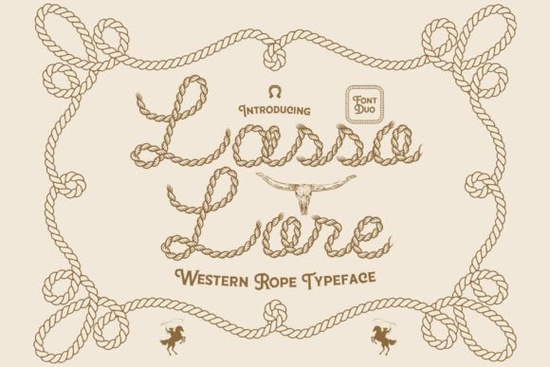
If you’re looking for a display font that feels like it belongs on a vintage saloon sign, a ranch branding iron, or a hand-stamped leather journal cover, Lasso Lore Font is worth your attention. It’s not just another Western-style typeface it’s built from the physical language of rope: tight coils, loose loops, and uneven tension. That authenticity shows up in every uppercase and lowercase glyph, giving your designs texture and intention not just theme.
What makes Lasso Lore different from other Western fonts?
Most “cowboy” fonts lean heavily on serifs, sharp angles, or distressed textures. Lasso Lore takes a more tactile approach. Its letterforms echo the way a lariat twists and settles soft curves where rope bends, subtle tapering where it tightens, and gentle irregularities that mimic hand-wound fiber. It’s bold enough for headlines and logos, but never cartoonish or overly stylized. You’ll notice how the “S,” “R,” and “G” especially capture that coiled, pliable energy like rope draped over a fence rail rather than stamped onto a tin can.
The pairing with Roseblade is thoughtful, not just convenient. Roseblade isn’t a generic sans-serif it’s a clean, slightly calligraphic secondary font with balanced weight and open spacing. Where Lasso Lore brings warmth and character, Roseblade adds clarity and contrast. Use them together for posters, shop banners, or product labels: Lasso Lore for the brand name or headline, Roseblade for body text, pricing, or descriptors.
Who actually uses Lasso Lore and how?
Small businesses launching Western-themed products think handmade soaps with sage-and-cedar scents, leather gear shops, or Texas-based coffee roasters find it especially useful for consistent branding across packaging, Instagram posts, and Etsy banners. Print-on-demand sellers use it for rustic apparel designs (think “Trail Boss” on a heavyweight tee) because it scales well and holds detail even at smaller sizes when used thoughtfully.
How does it compare to other popular script and display fonts?
Unlike flowing scripts like Coconut Mocha or Samantha Handwriting, Lasso Lore isn’t meant for personal notes or elegant invitations. It’s bolder, more structural, and intentionally rougher around the edges. If you love the organic feel of Anytimes but need something with stronger Western identity, or if you’ve used Valentina Calligraphy for softer projects and want a grounded counterpart, Lasso Lore fills that niche cleanly.
It’s also distinct from decorative display fonts that rely on heavy outlines or shadow effects. Lasso Lore works with color, layering, and simple backgrounds no extra effects needed. That makes it easier to adapt for embroidery digitizing, vinyl cutting, or screen printing, where complex details can get lost.
Where to use it and where to pause
Best for:
- Logo lockups (especially paired with Roseblade)
- Event posters and rustic wedding signage
- Merchandise like mugs, tote bags, and denim patches
- Social media banners and profile highlights for themed accounts
- Digital downloads targeting Western, Americana, or outdoor audiences
Less ideal for:
- Long paragraphs or body copy (it’s a display font, not a text font)
- Ultra-minimalist or Scandinavian-inspired brands (its personality is too present)
- Brands aiming for strict historical accuracy the design is inspired by Western craft, not a replica of 19th-century typesetting
If you're curious about how real designers apply rope-inspired typography, check out examples of Lasso Lore font in action on Creative Fabrica’s platform especially in best-selling POD bundles and craft kits.
A quick checklist before you download
- ✅ Confirm your project needs strong visual personality not neutrality
- ✅ You have a clear use case for a display font (headline, logo, banner)
Try setting a short phrase like “High Desert Co.” or “Ride On” in Lasso Lore first. Then add Roseblade underneath for the tagline. See how the contrast feels. If it gives your project that grounded, handmade, quietly confident tone, you’ve found your match.